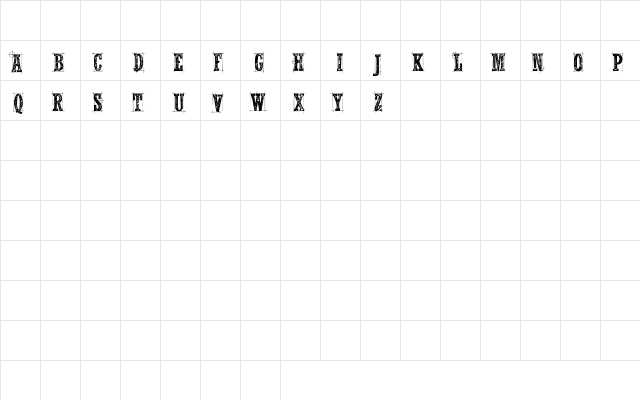
CF Nelson Old Caracters Regular
| Foundry | CloutierFontes |
| Designer | Steve Cloutier |
Design Context for CF Nelson Old Caracters Typeface
CF Nelson Old Caracters is a composed and adaptable typeface that performs quietly and consistently across a wide range of design contexts.